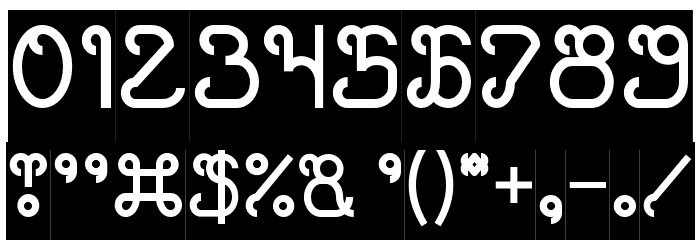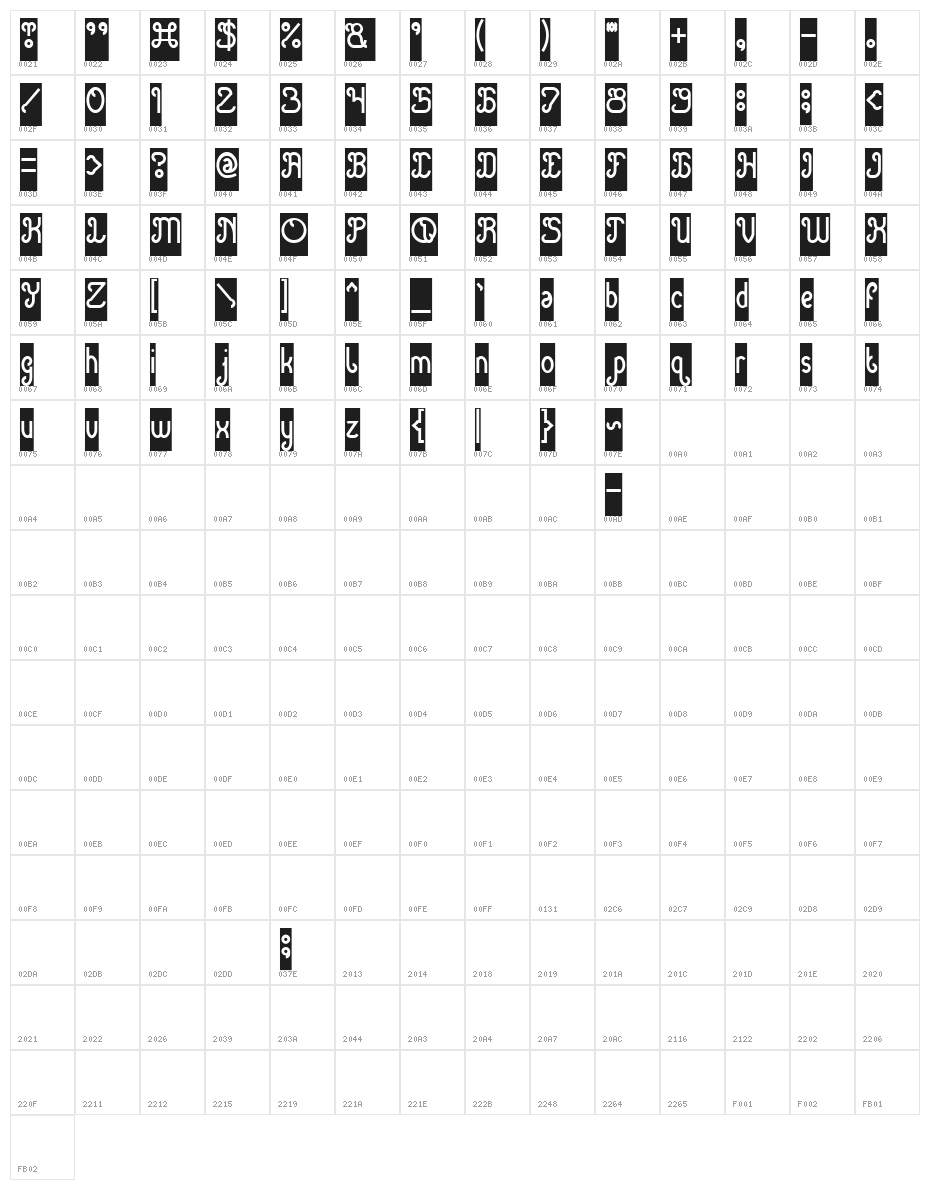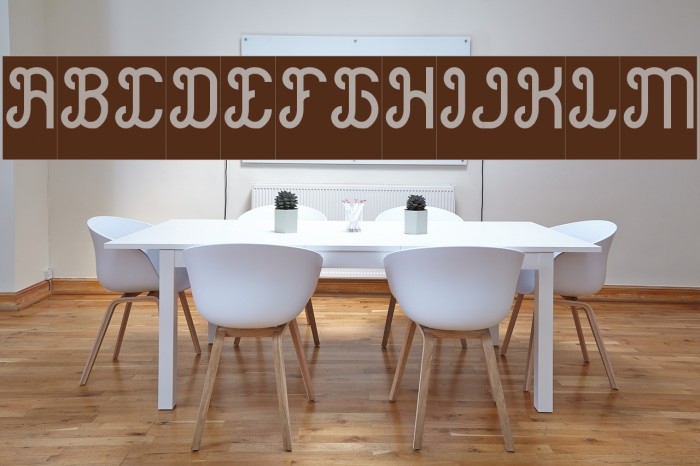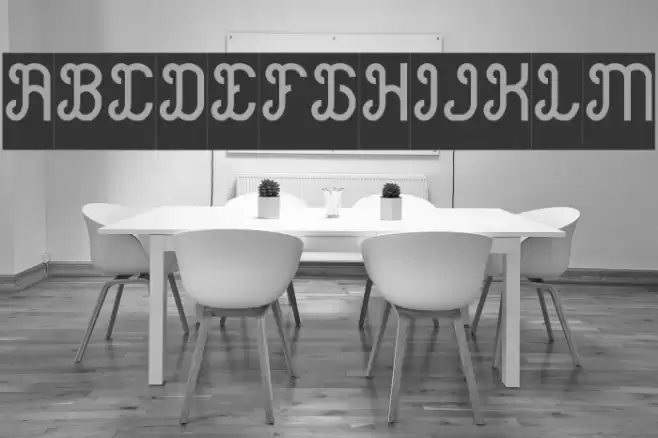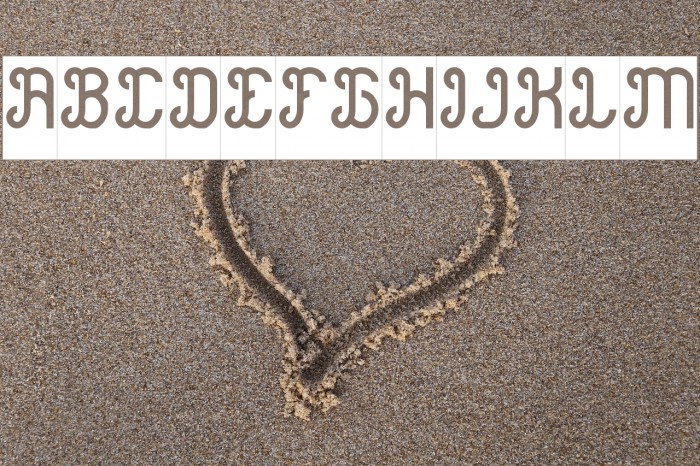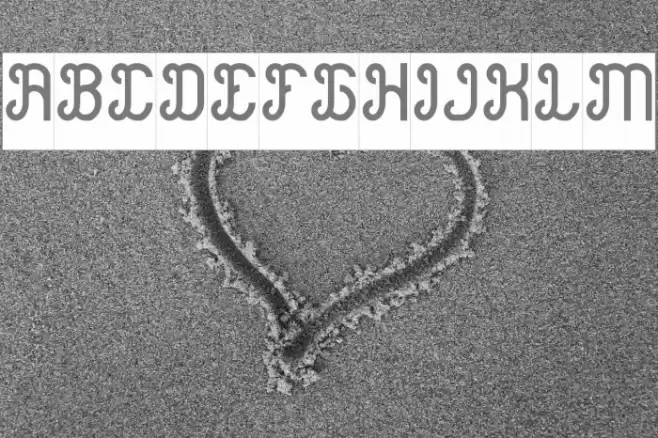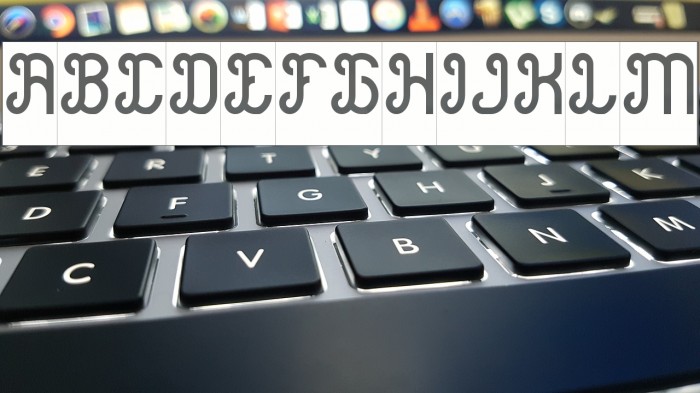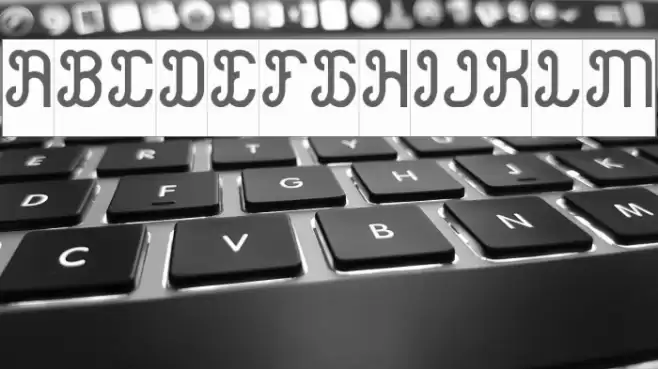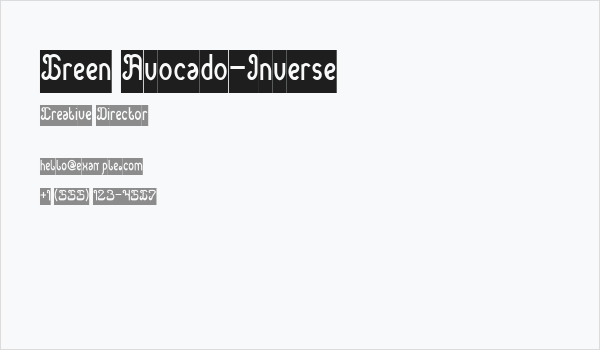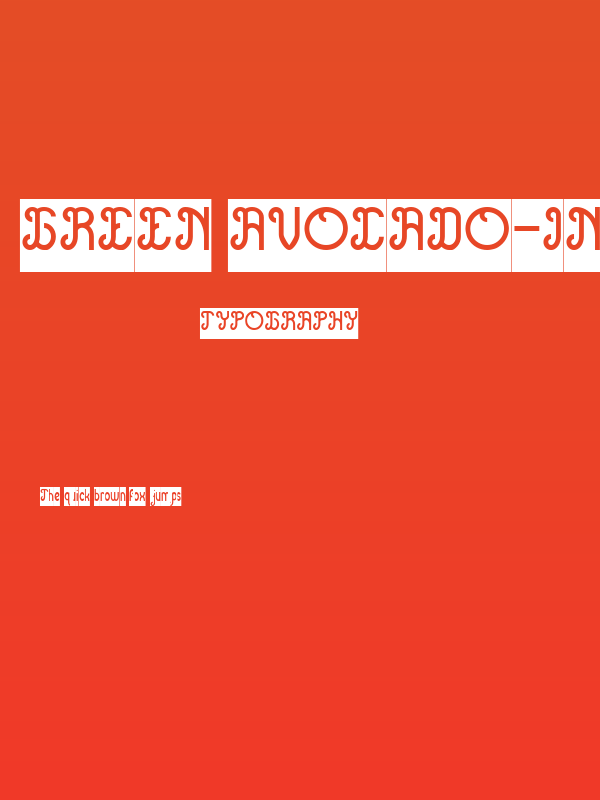
Green Avocado-Inverse Font
Green Avocado-Inverse Description
This font features a unique and playful design with a decorative flair. The characters are bold and rounded, with a distinctive looped style that adds a whimsical touch. The uppercase letters are uniform in height, while the lowercase letters maintain a consistent baseline with slight variations in ascenders and descenders. The numbers and special characters follow the same playful and bold aesthetic, making them stand out. The overall appearance is eye-catching and suitable for creative and artistic projects.
| Proposed Projects | Ideal for branding, posters, children's books, and creative design projects. |